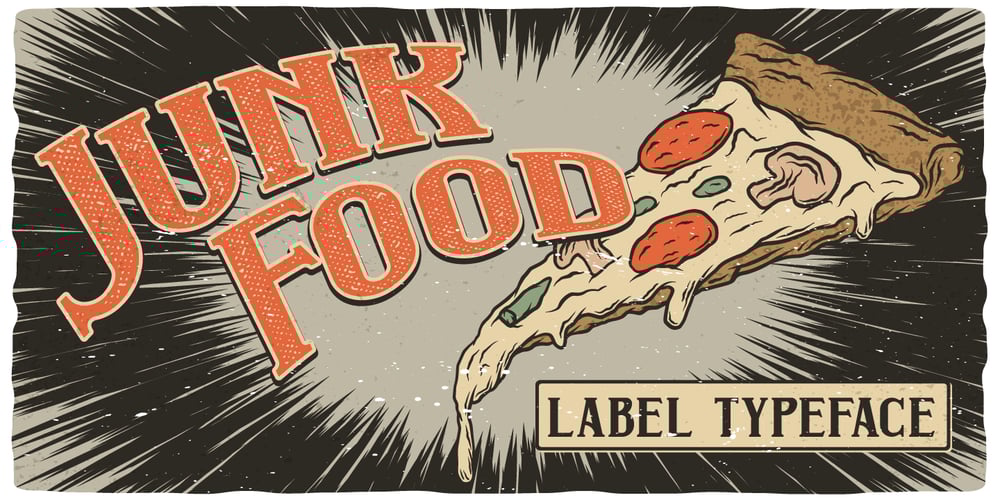
Junk Food
Junk Food font
Junk Food Font Family was designed by Oleg Voznyy and published by Vozzy. Junk Food contains 6 styles and family package options. Introducing a vintage label font named Junk Food. This strong typeface is perfect for lettering on vintage style posters, t-shirts, greeting cards, logo etc. This font family contains 6 fonts including effects fonts: Regular, Shadow, Shadow FX, Texture, Texture FX, Shadow And Texture.